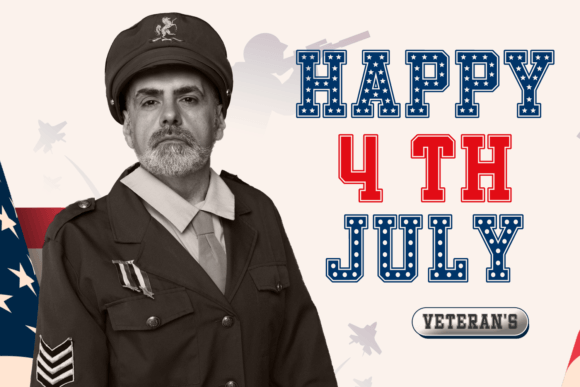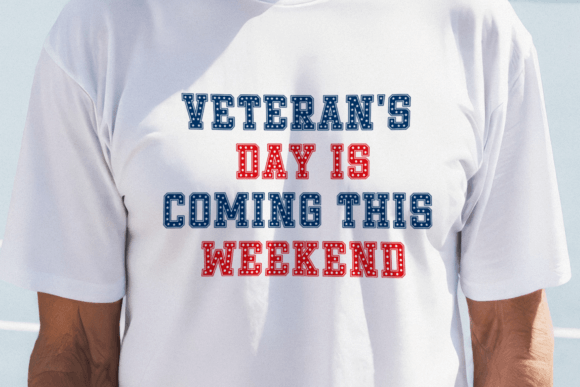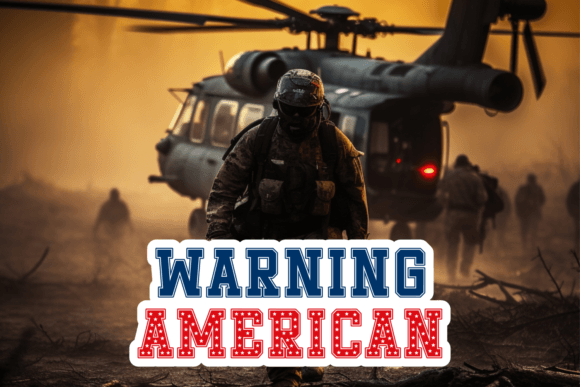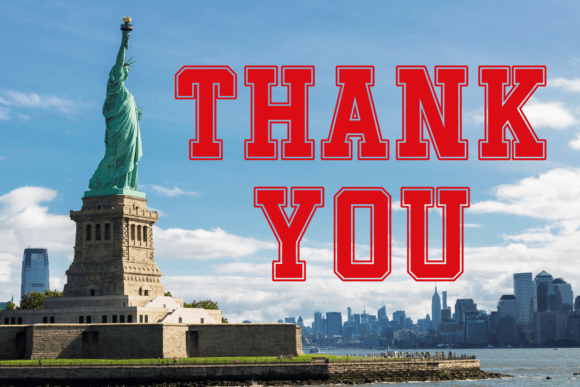
Introducing Victory Fonts: The Quintessential Slab Serif Fonts for Designers and Crafters
Are you a designer or crafter looking for a font that embodies the essence of American culture and national identity? Look no further than Victory Fonts, a stunning Slab Serif font that exudes elegance and a smooth finish. In this article, we’ll introduce you to the world of Victory Fonts and explore its features, applications, and benefits.
What are Slab Serif Fonts?
Slab Serif fonts are a type of font characterized by thick, block-like serifs, which give them a distinctive look. They are often associated with a strong, rugged, and dependable feel, making them perfect for designs that require a sense of stability and reliability. Victory Fonts take this classic style to the next level with their refined and polished appearance.
Introducing Victory Fonts: A Blend of Modernity and Authenticity
Victory Fonts are crafted with the utmost care and attention to detail, making them an authentic expression of Slab Serif Fonts. With their rich elements of American culture and history, these fonts are perfect for designers and crafters who want to create designs that resonate with the American spirit. Whether you’re working on a T-shirt design, poster, book cover, or packaging design, Victory Fonts are the perfect choice.
Key Features of Victory Fonts
- Elegant and Smooth Finish: Victory Fonts boast a smooth finish that gives them a luxurious feel.
- Multilingual Support: These fonts support multiple languages, making them a versatile design asset.
- Quintessential American Values: Victory Fonts are infused with rich elements of American culture and history.
- Superior Smoothness: These fonts are designed to provide a seamless design experience.
Applications of Victory Fonts
Victory Fonts are incredibly versatile and can be used in a wide range of applications, including:
- T-shirt Designs: Create eye-catching and stylish T-shirt designs that appeal to a wide audience.
- Posters: Design captivating posters that grab attention and leave a lasting impression.
- Book Covers: Create engaging book covers that convey the essence of the story.
- Magazines: Add an edge to your magazine designs with the superior smoothness of Victory Fonts.
- Packaging Designs: Elevate your packaging designs with the elegance and sophistication of Victory Fonts.
Benefits of Using Victory Fonts
By choosing Victory Fonts, designers and crafters can benefit from:
- Persuasive Branding: Create a lasting impression with designs that resonate with your audience.
- Time-Saving: With their superior smoothness, Victory Fonts save you time and effort in the design process.
- Uniqueness: Stand out from the crowd with designs that feature the distinctive look of Victory Fonts.
In conclusion, Victory Fonts are an exceptional Slab Serif font that embodies the essence of American culture and national identity. With their elegant and smooth finish, multilingual support, and versatility, these fonts are perfect for designers and crafters who want to create stunning designs that resonate with their audience. Whether you’re working on a T-shirt design, poster, book cover, or packaging design, Victory Fonts are the perfect choice.